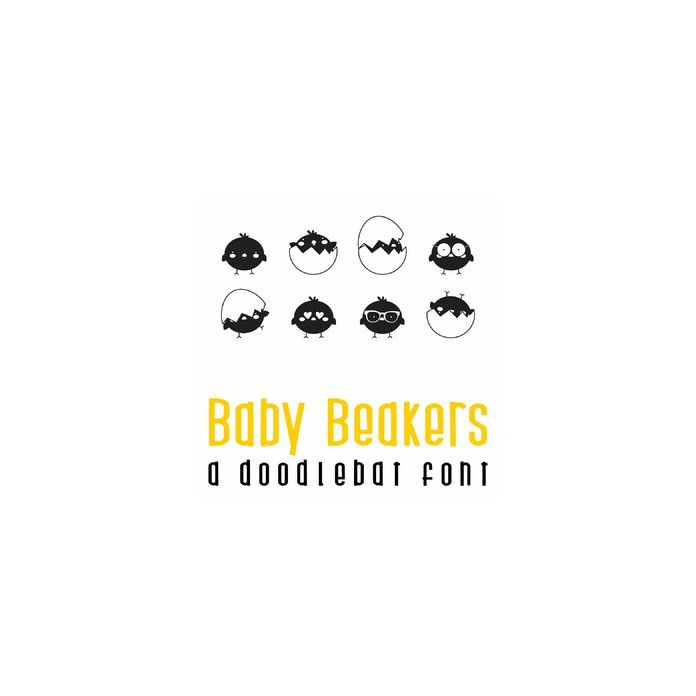
Baby Beakers Doodlebat Font
This fun doodlebat font features 26 emoji baby chicks. Perfect for Easter, cards, gifts, decor, crafts, scrap book pages, planner stickers and more!